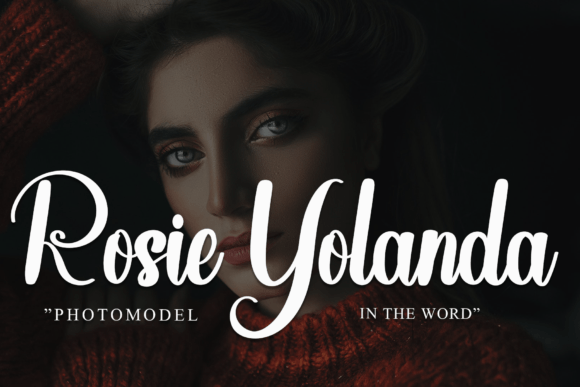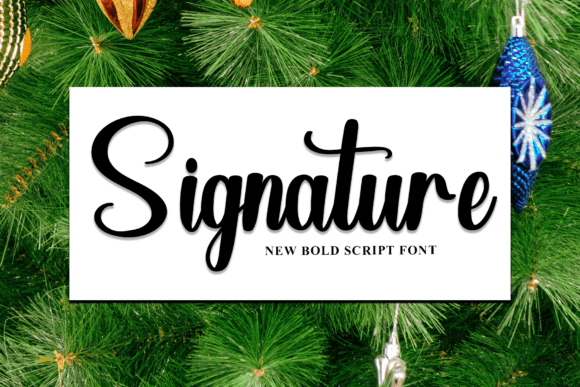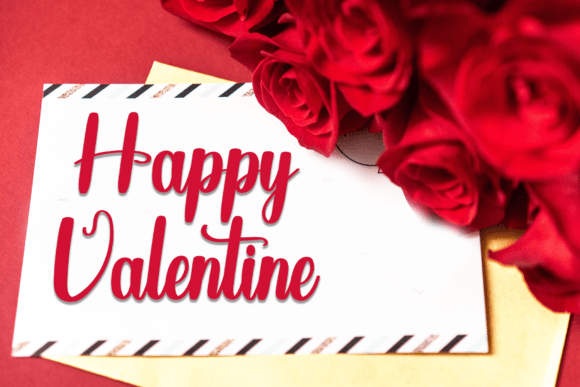
Introduction to Legend of Christmas Font
It’s the most wonderful time of the year – a time when creativity knows no bounds, and our imagination runs wild. You’re sitting at your desk, surrounded by scraps of paper, glue, and glitter, brainstorming ideas for the perfect holiday card or gift tag. The clock is ticking, and you’re searching for that one special design element that will make your project truly shine. And then, it hits you – the Legend of Christmas Font, with its whimsical flair and decorative elements, is the perfect addition to your creative project.
This enchanting font is a valuable resource for designers, adding a touch of magic to any design. With its transparent background and high-quality design, it’s the perfect tool to bring your holiday-themed projects to life. And the best part? It’s available for free download, making it an accessible design resource for creatives of all levels.
Key Features of Legend of Christmas Font
- Unique and festive design elements, perfect for creative projects and holiday-themed designs.
- Perfect for use in graphic design, digital art, and creative projects, such as posters, invitations, and social media graphics.
Honest Review: Legend of Christmas Font
I recently stumbled upon the Legend of Christmas Font while searching for design resources to spice up my holiday projects. I was excited to give it a try and see how it would fit into my creative project.
- High-quality design: The Legend of Christmas Font is beautifully crafted with intricate details and festive elements.
- Transparent background: This feature allows for seamless integration into any design project, whether it’s a Christmas card or a holiday-themed website.
While the Legend of Christmas Font is a great addition to any design project, I did find a few limitations:
- Limited character set: The font only includes a few special characters, which might limit its use in more complex designs.
- No bold or italic versions: While the regular font is beautiful, not having bold or italic versions might make it less versatile for certain design needs.
Overall, the Legend of Christmas Font is a great design resource for anyone looking to add a touch of festive flair to their projects. With its high-quality design and free download, it’s a must-have for any designer working on a creative project during the holiday season.
Tips for Getting the Most Out of Legend of Christmas Font
Use the Legend of Christmas Font on a transparent background to give your design a clean and elegant look. Experiment with different font sizes and colors to create a unique and creative project. This font is a high-quality design resource that can be used in a variety of creative projects, from holiday cards to social media graphics.
The Legend of Christmas Font is perfect for use in holiday-themed designs, such as Christmas cards, gift tags, and social media graphics. It’s also a great choice for use in creative projects, such as scrapbooking and card making. This font is a free download, making it a great resource for designers and crafters on a budget.